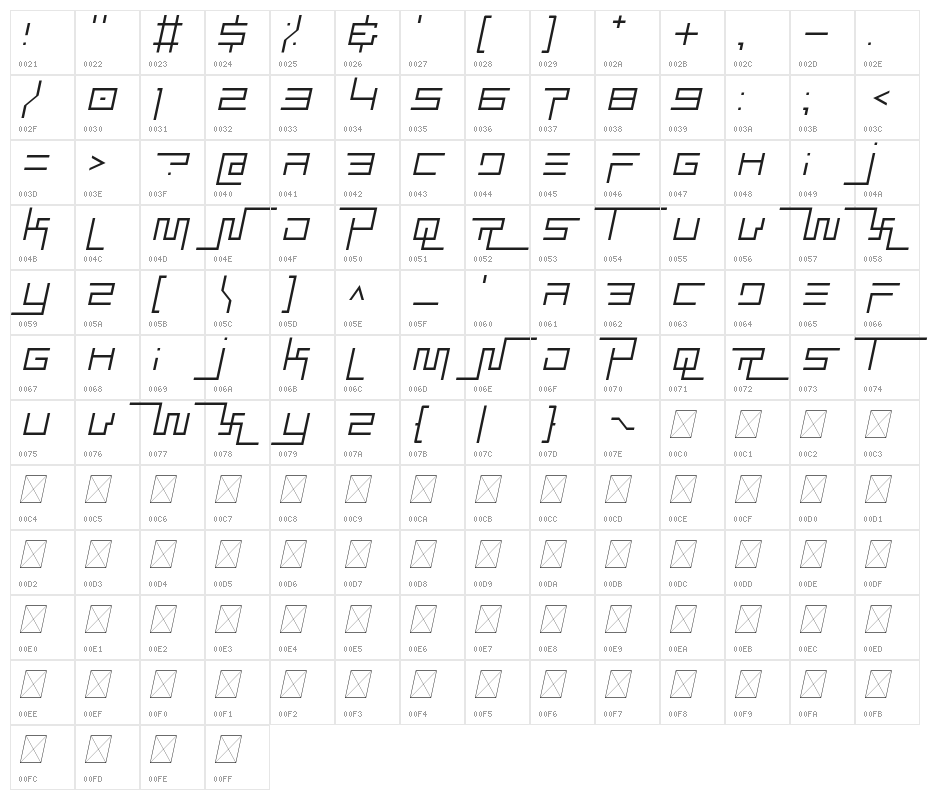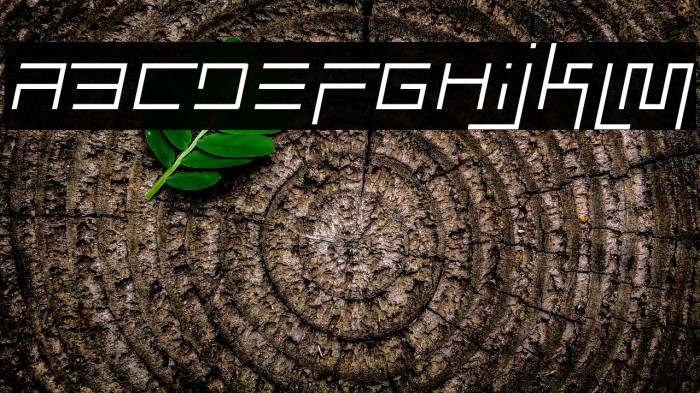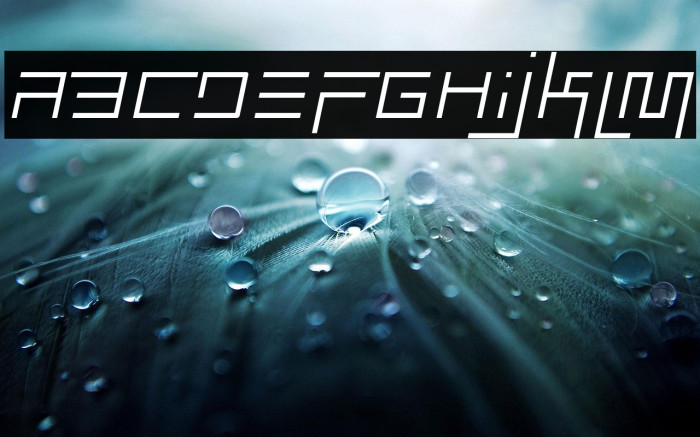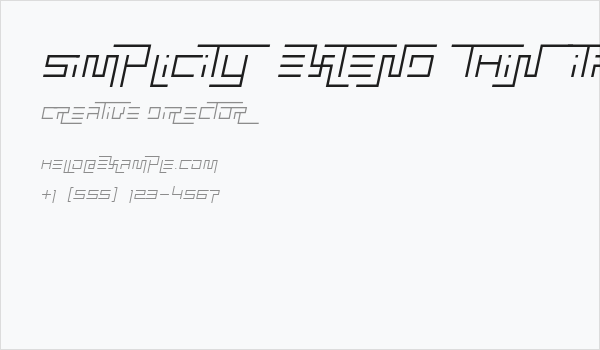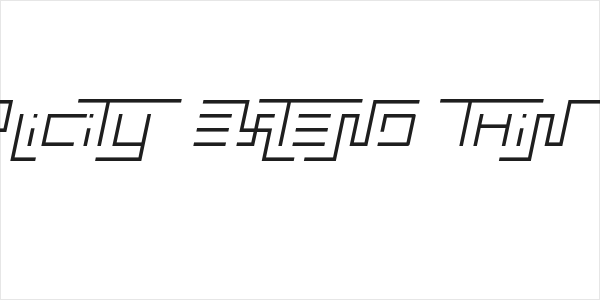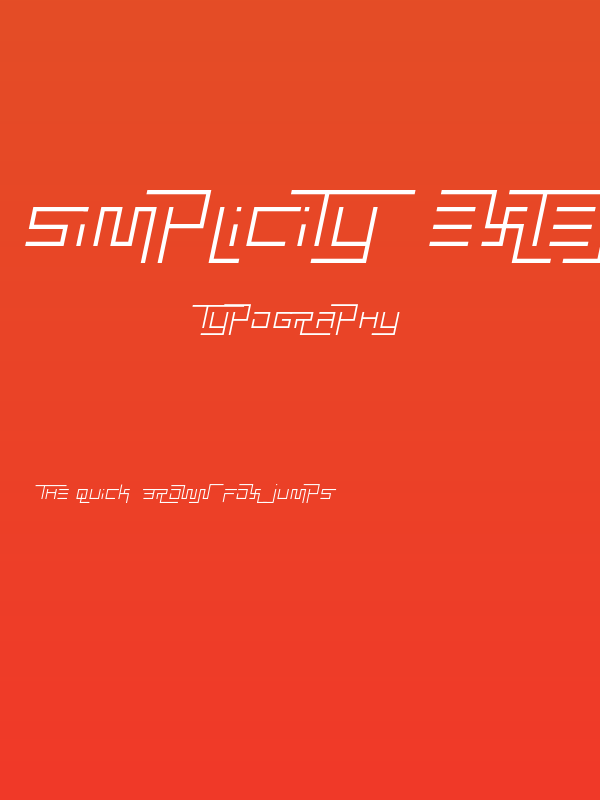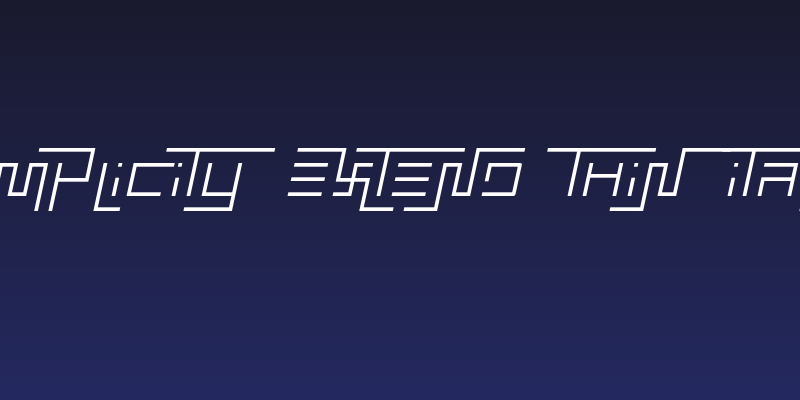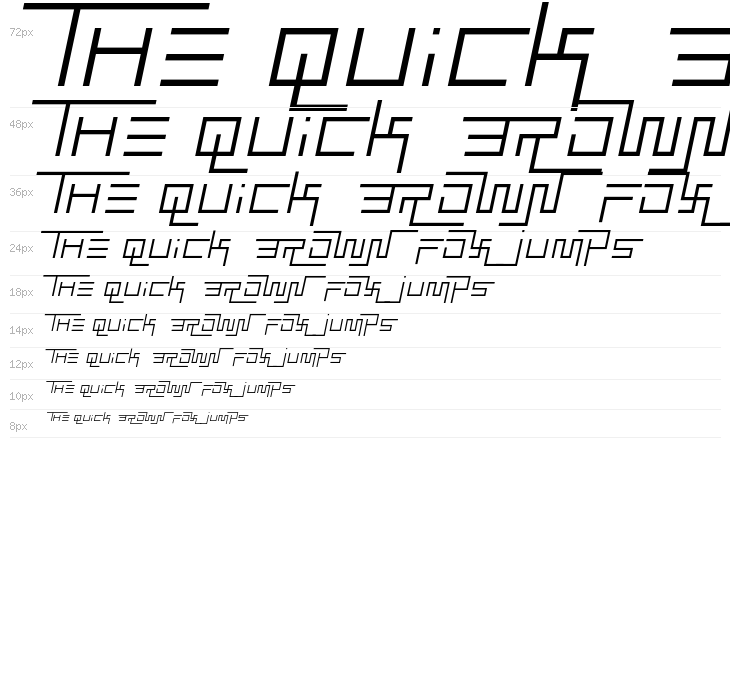
Simplicity Extend Thin Italic Font
Simplicity Extend Thin Italic Description
This font exhibits a futuristic and geometric design, characterized by its angular and linear structure. The letters are formed with straight lines and sharp angles, giving it a modern and tech-inspired appearance. The thin strokes and italicized slant add a dynamic and sleek quality, making it stand out as a distinctive choice for contemporary design projects. The uniformity in line thickness and the consistent angularity across characters contribute to its cohesive and structured look. This font is well-suited for projects that aim to convey innovation, technology, or a forward-thinking aesthetic.